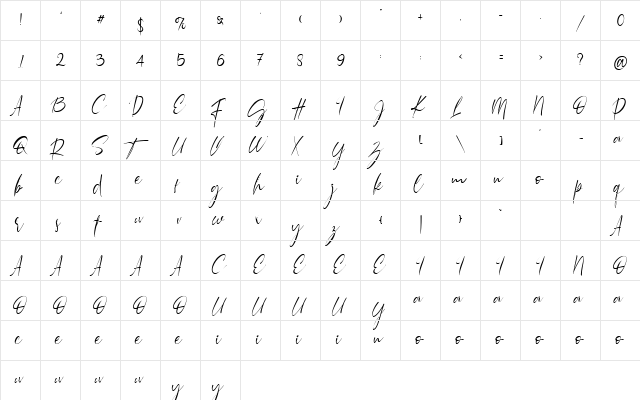
Mollitha Demo Regular
| Foundry | Ardyanatypes Studio |
| Designer | Ardyana Types |
Design Context for Mollitha Demo Typeface
Mollitha Demo is a composed and adaptable typeface that performs quietly and consistently across a wide range of design contexts.